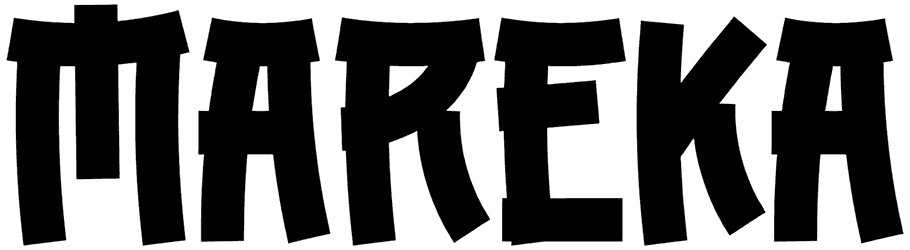
Mareka Font
Do you want to create an attractive and cool vibe for your words? This unique samurai font with its hand-lettering face makes it easy for you. Mareka font doesn’t cover numbers and most punctuation marks, but it can work well to promote a lot of innovative layouts like movie posters, web graphics, apparel, and more of the same.